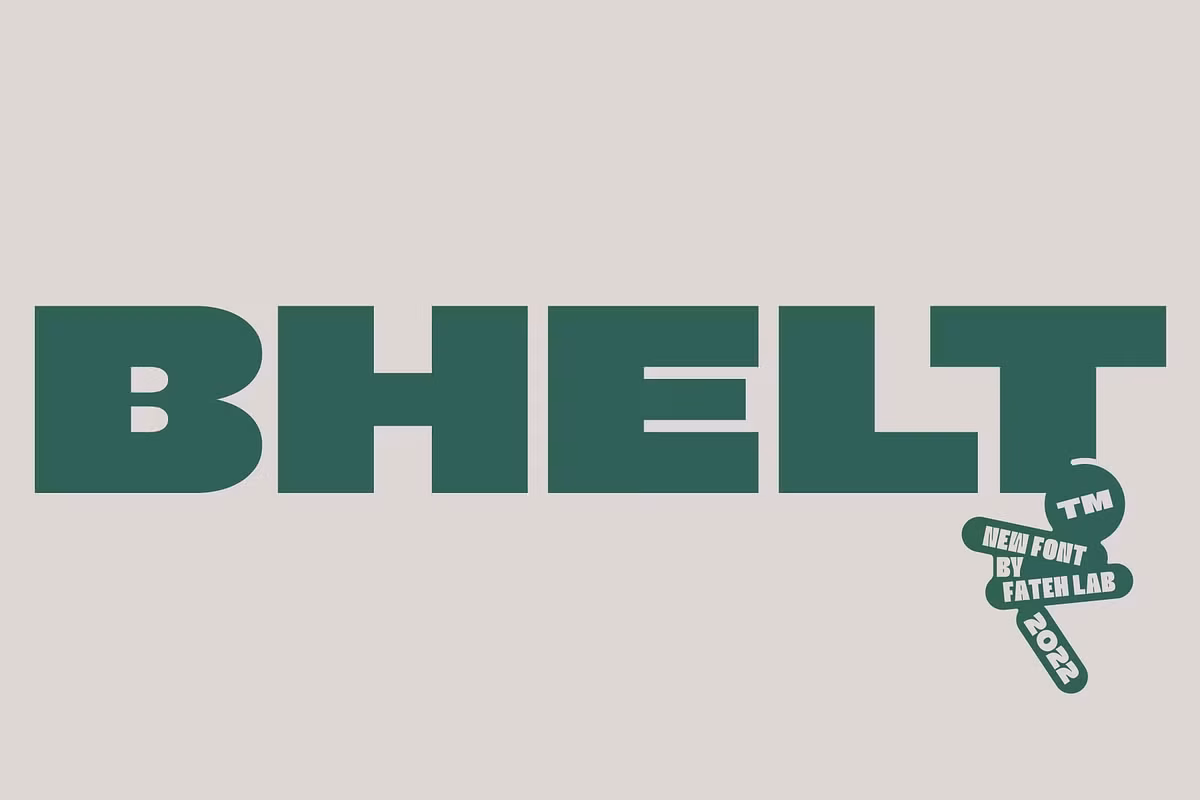
Bhelt | Bold & Dingbats Fonts Free Download is a unique and creative typeface bundle that combines bold, striking letterforms with a collection of playful dingbats. Perfect for logos, branding, posters, product packaging, and creative design projects, Bhelt adds character and impact to any visual.
The bold fonts give your designs a strong, modern look, while the included dingbats provide fun and quirky elements for added flair. Bhelt includes uppercase and lowercase letters, punctuation, symbols, multilingual support, and works seamlessly on both Mac and Windows systems.